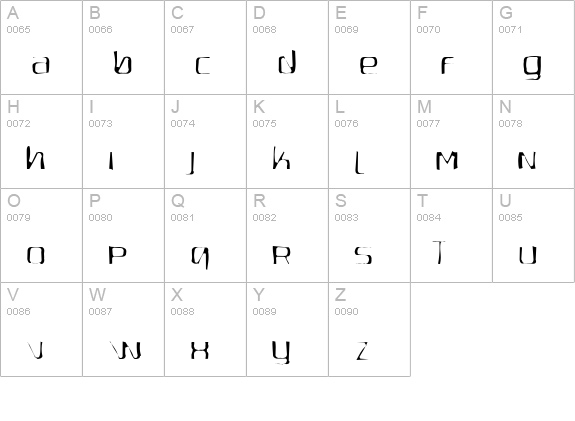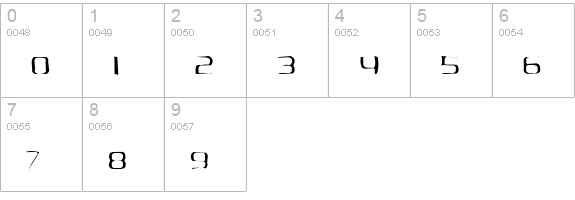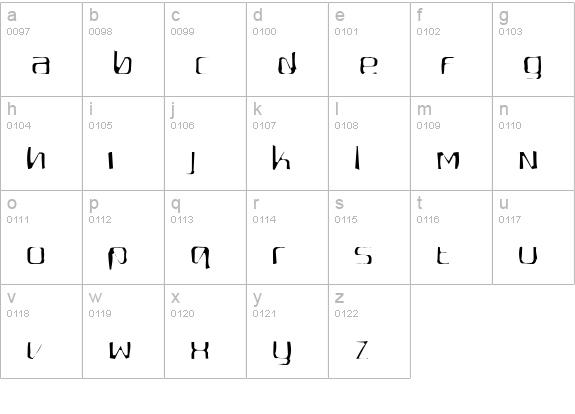
Quadaptor Gaunt Font Details
Quadaptor Gaunt is a modern and stylish font that exudes a sense of edgy sophistication. Featuring sharp angles and sleek lines, this typeface is perfect for adding a contemporary touch to any design project. Whether you're creating a logo, poster, or website, Quadaptor Gaunt will make a bold statement. The font is free to download at FontsMarket.com, making it accessible to all designers looking to elevate their work with a touch of avant-garde flair. Don't miss out on the opportunity to enhance your designs with this unique and eye-catching font.